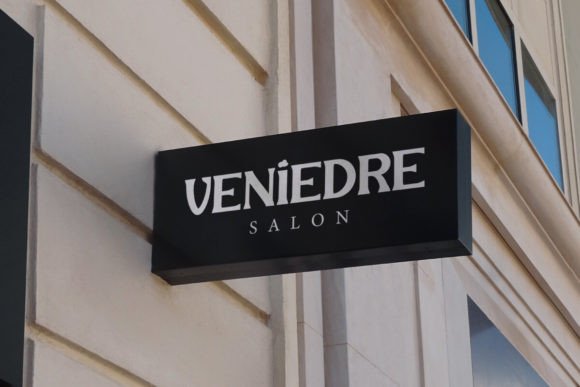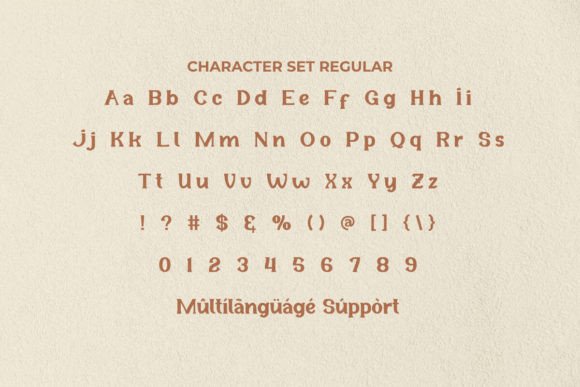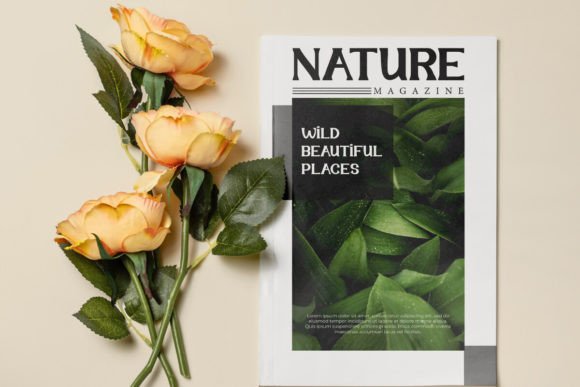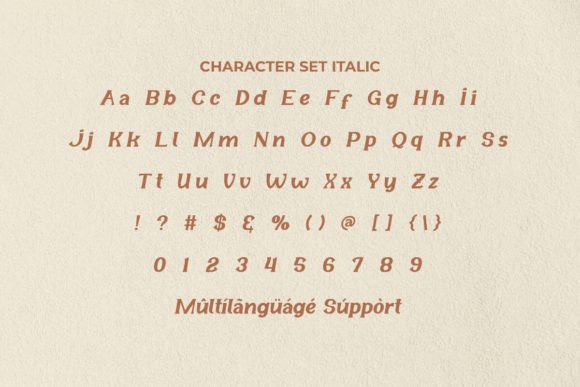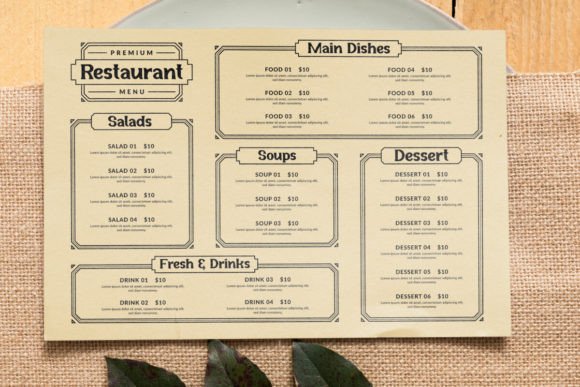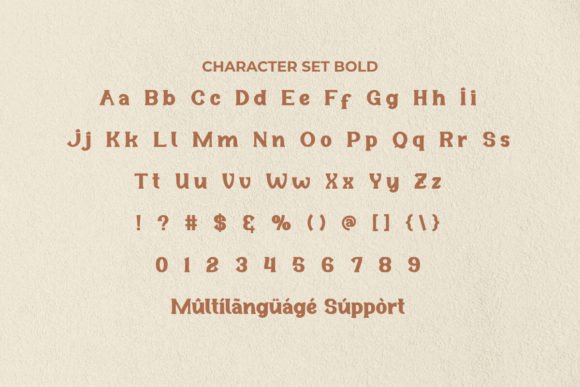
Introduction to Nihiwatu Font
Have you ever been stuck on a creative project, struggling to find the perfect font to bring your vision to life? You’ve poured your heart and soul into designing a stunning logo, but something’s missing – a touch of elegance, a dash of sophistication, and a pinch of personality. This is where the Nihiwatu Font comes in, a game-changing display font that’s about to revolutionize your design process.
With its unique styles, including Regular and Italic, the Nihiwatu Font is the ultimate design resource for creatives. Whether you’re working on a high-quality brand logo, designing custom business cards, or crafting eye-catching posters, this font is sure to elevate your work to new heights. And the best part? It’s available for free download, making it an accessible and valuable resource for designers of all levels.
Key Features of Nihiwatu Font
- High-quality design: Nihiwatu Font is a unique and stylish font perfect for creative projects requiring a touch of sophistication.
- Unique character set: Nihiwatu Font features a unique character set, including a range of special characters and glyphs, making it a valuable resource for designers.
- Perfect for branding and design: Nihiwatu Font is perfect for use in branding and design projects, adding a touch of elegance and sophistication to any creative project.
Honest Review: Nihiwatu Font
I recently had the chance to work with the Nihiwatu Font, and I must say it’s a beautiful addition to any creative project. This high quality font is perfect for designers looking for a unique and elegant touch.
- What works well: ✨ The Nihiwatu Font has a clean and sophisticated design that makes it ideal for both personal and commercial use. The transparent background allows for seamless integration into any design.
However, I did encounter some limitations while working with the Nihiwatu Font. ⚠️ The font may not be suitable for large-scale use due to its high resolution requirements. Additionally, some users may experience compatibility issues with certain software or operating systems.
Overall, I’m impressed with the Nihiwatu Font. Its unique design and high quality make it a great addition to any design project. While it may have some limitations, the benefits far outweigh the drawbacks.
Nihiwatu Font
Nihiwatu Font is a high-quality design resource ideal for creative projects. This versatile font offers a unique aesthetic and can be used in a variety of applications.
The Nihiwatu Font is ideal for a variety of creative projects, including logo design, branding, and marketing materials. Its high-quality typography and transparent background make it a great choice for designers and non-designers alike.